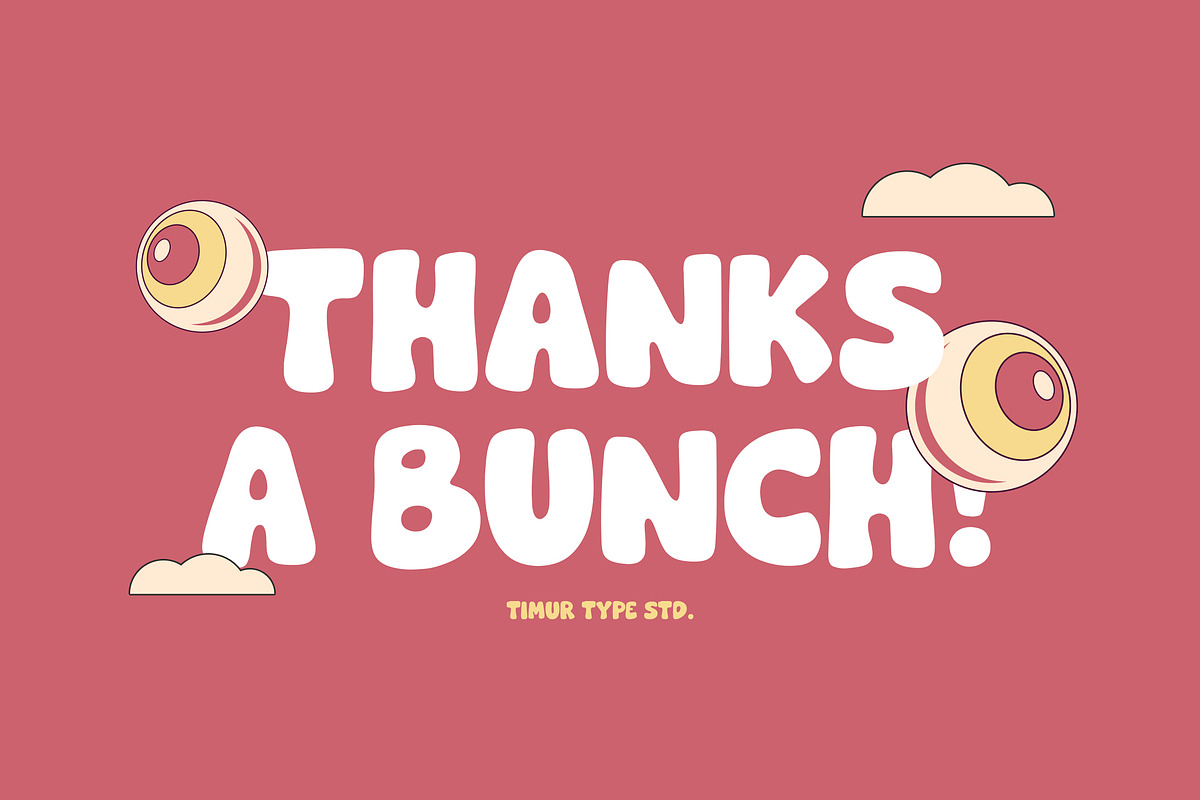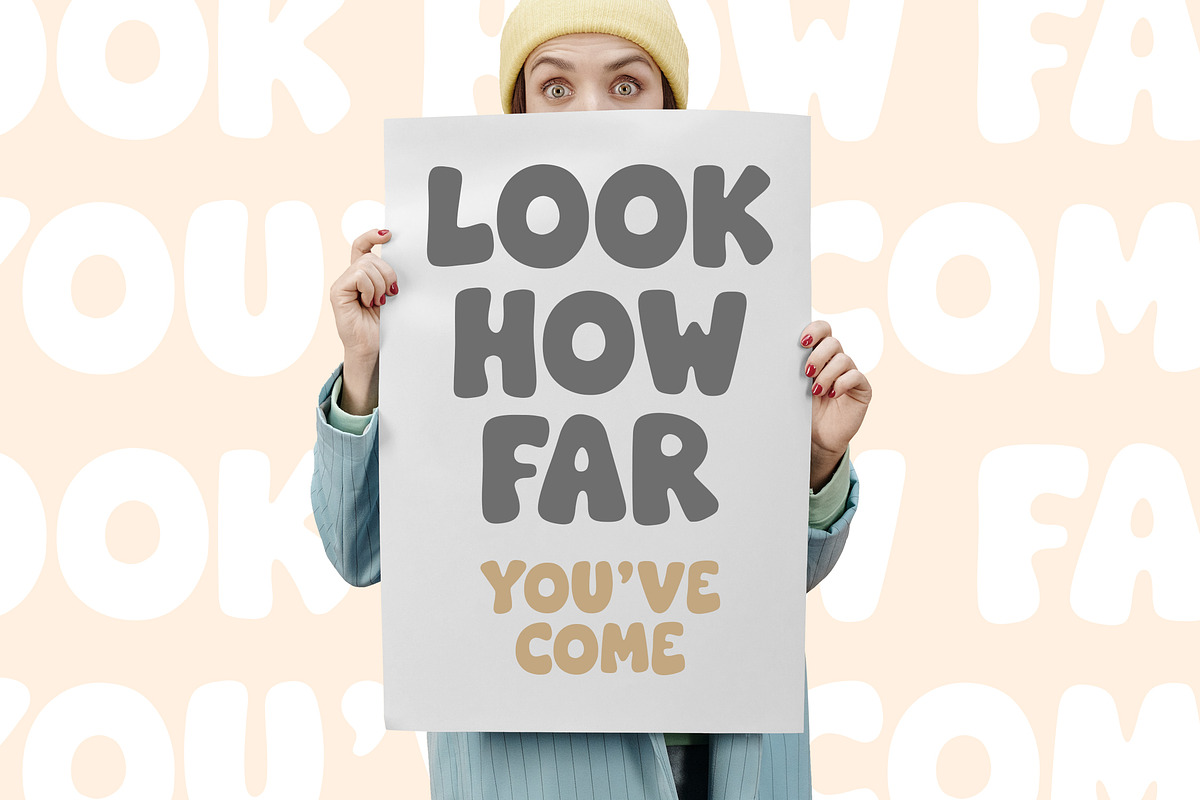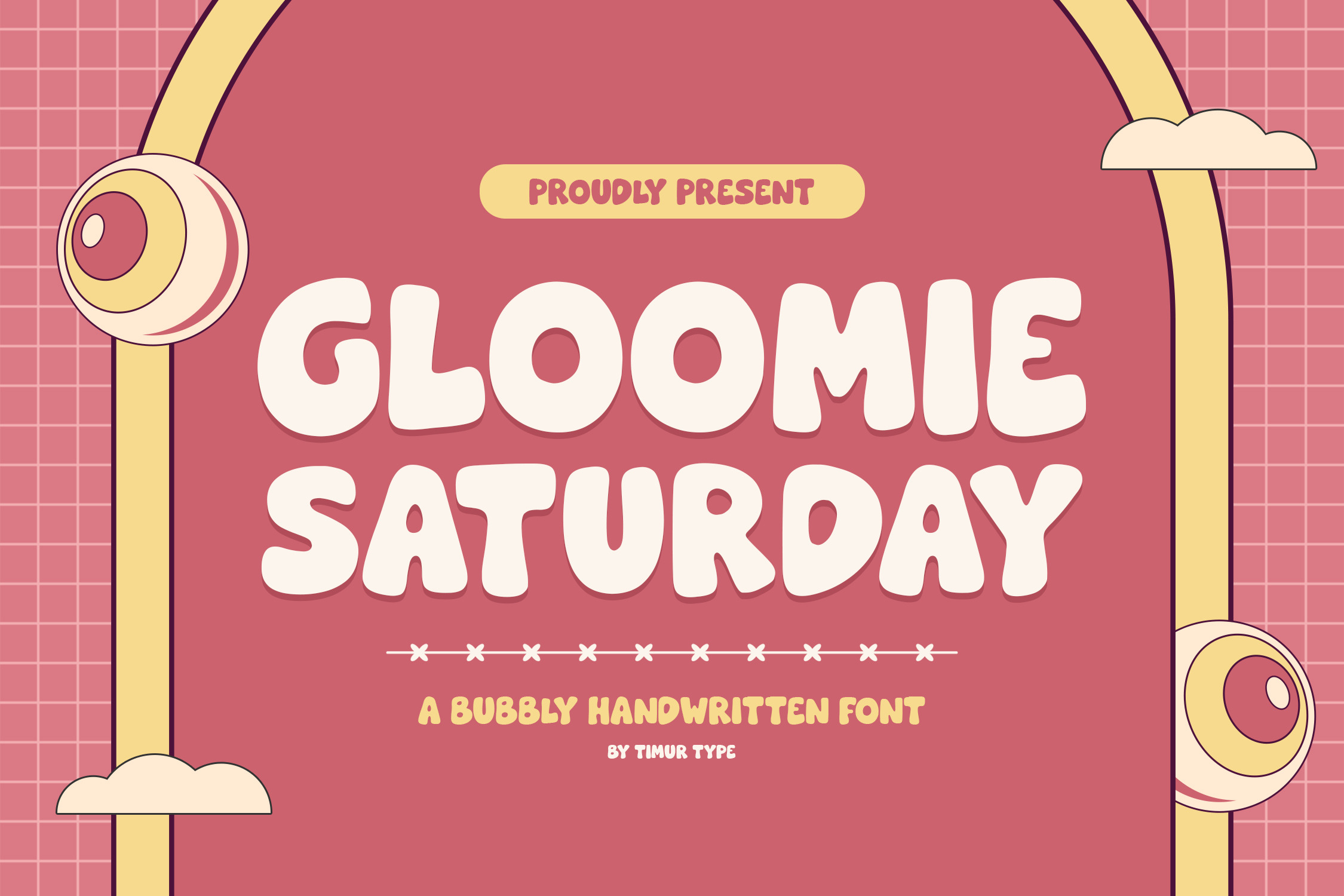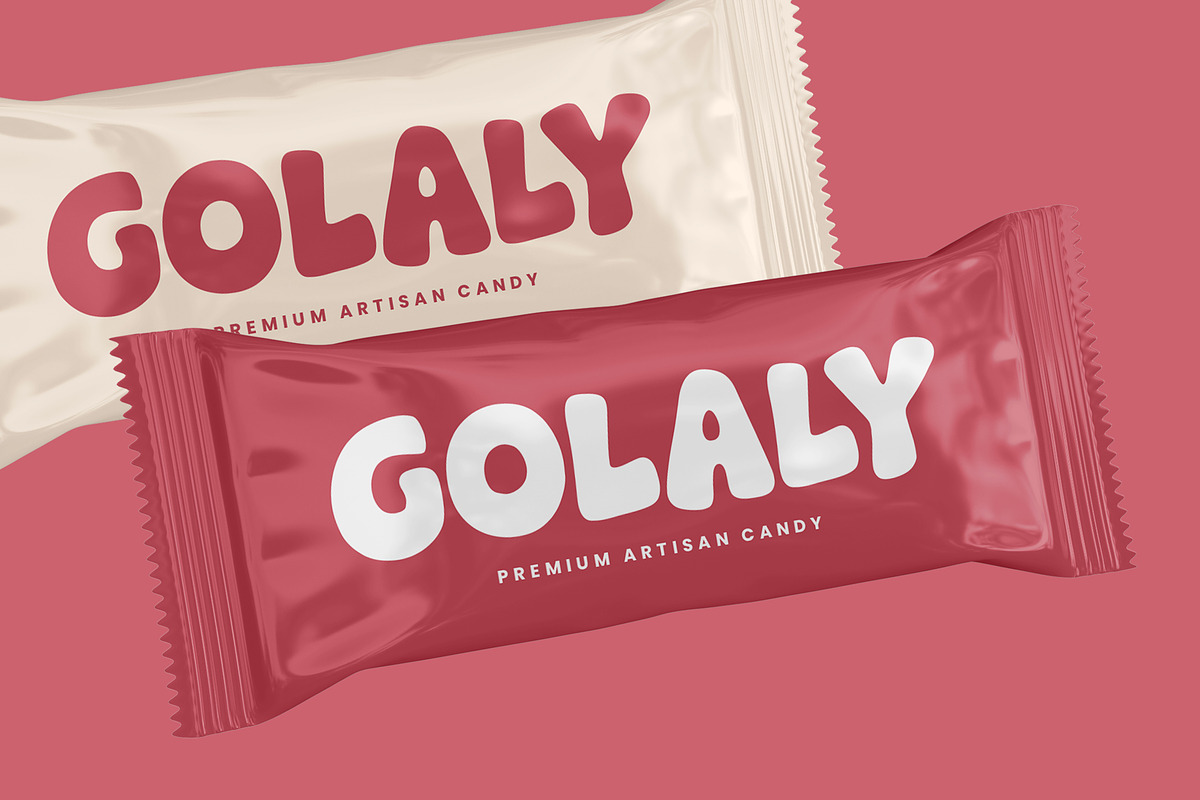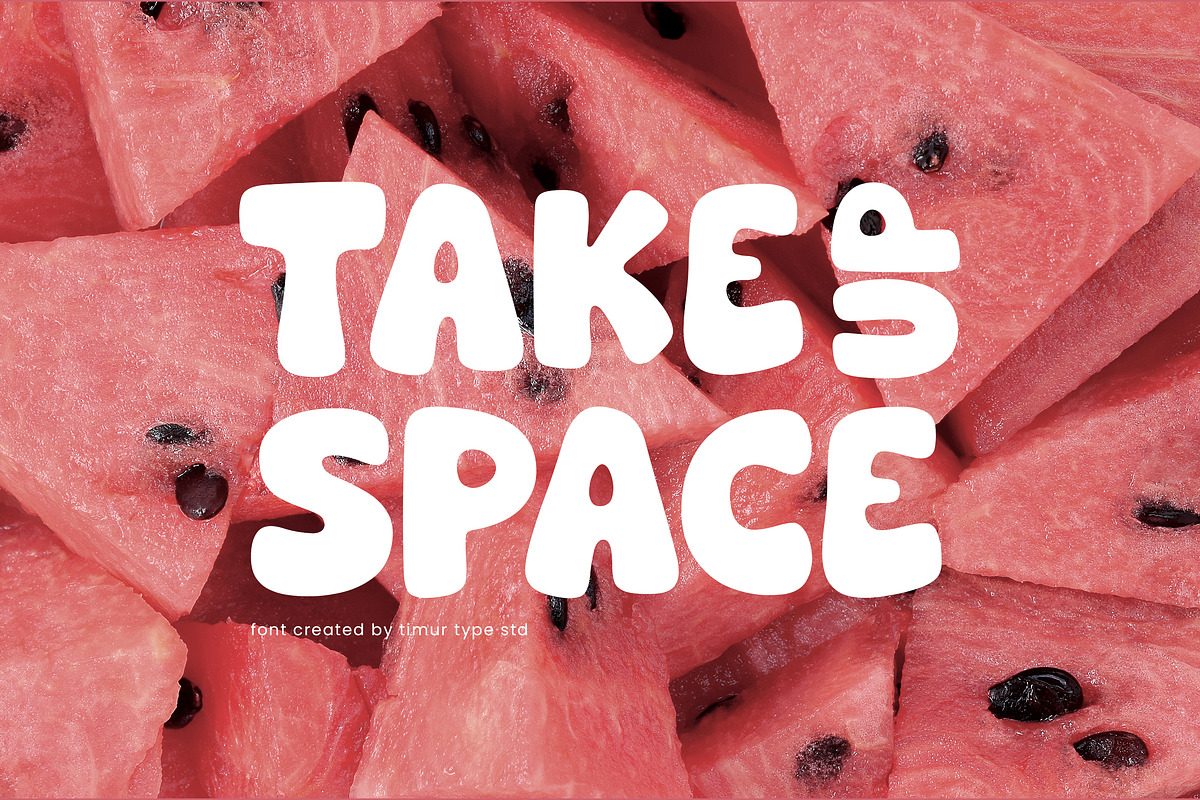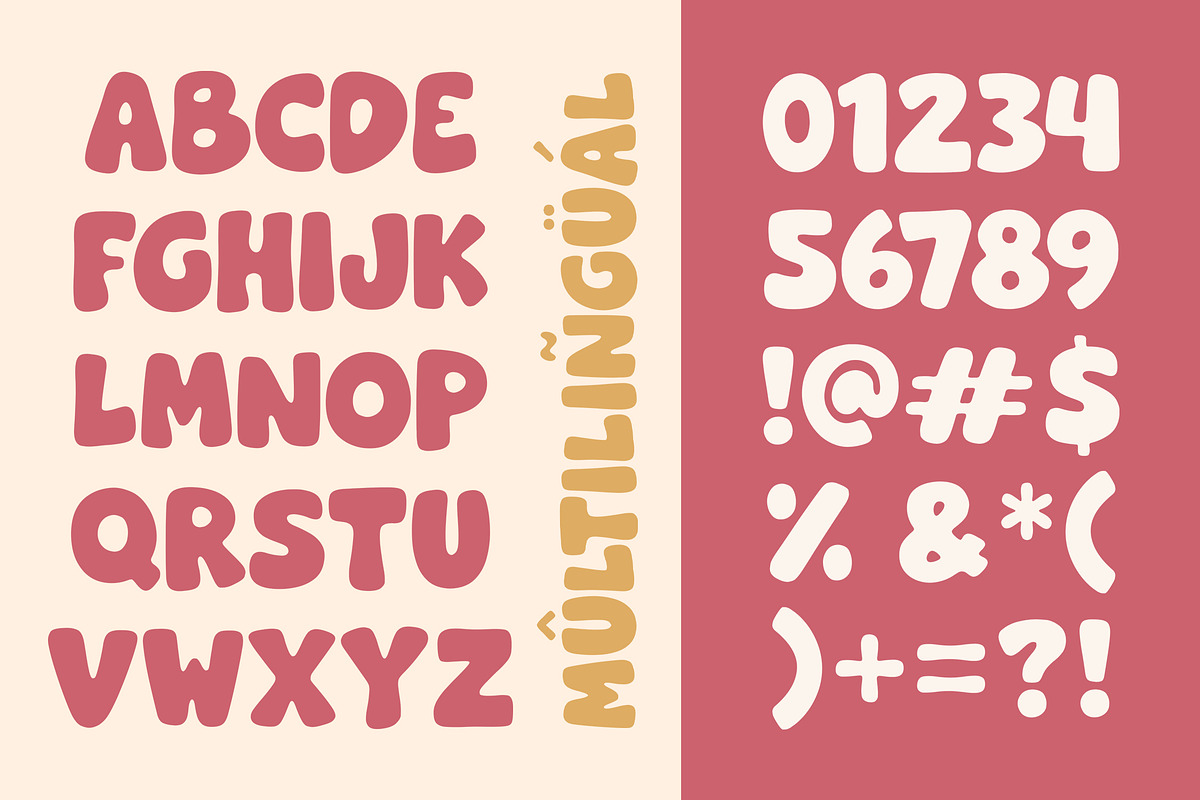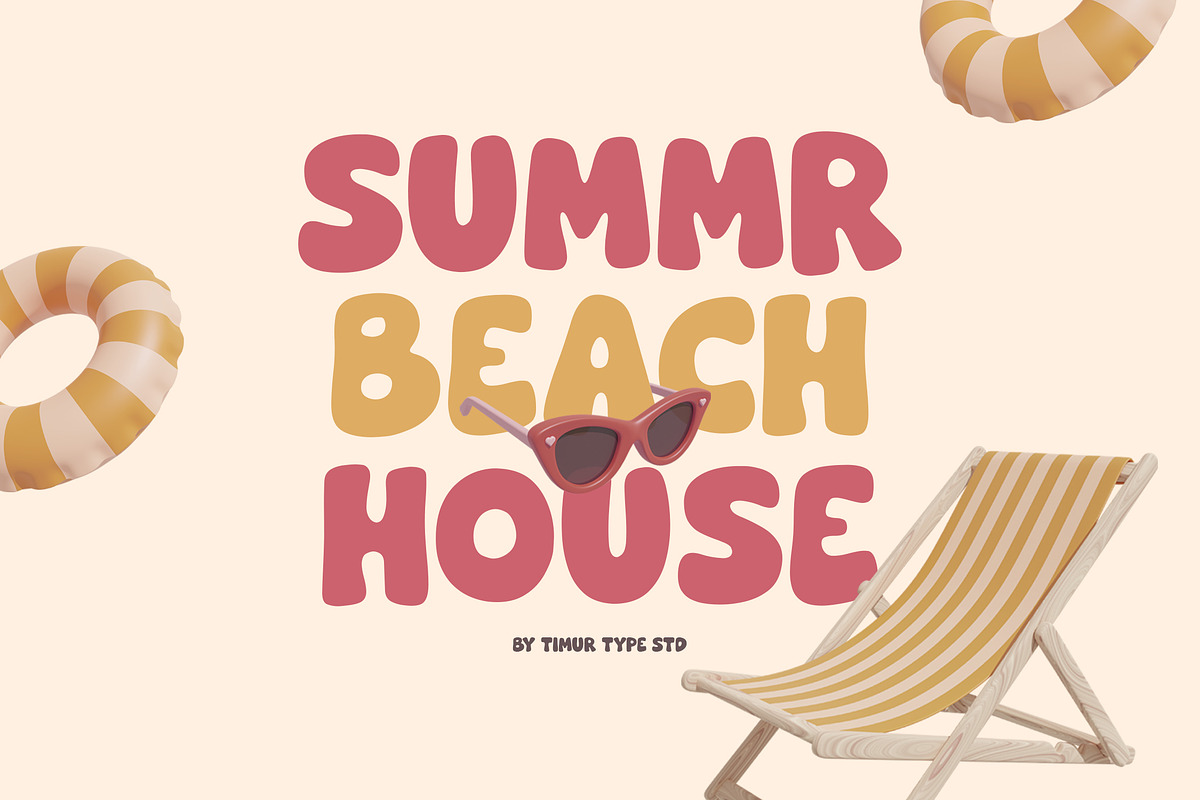
Gloomie Saturday - Bubbly Font
Gloomie Saturday is a Bubbly Handwritten Font
This font captures the charm of handcrafted elegance with our cheerful handwritten font collection – where every word dances with personality. Enhance your designs and captivate your audience with custom lettering art. Let your words sparkle with the magic of authenticity. Explore our cheerful fonts and make your message stand out!
Gloomie Saturday Font also supports multilingualism. Enhance your designs with our original fonts, feel free to comment or provide feedback, Enjoy the fonts 😊